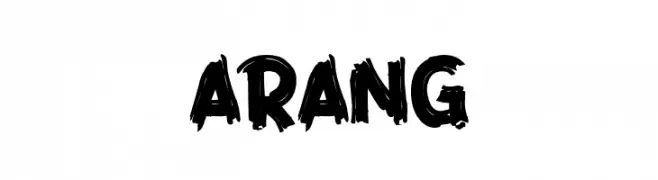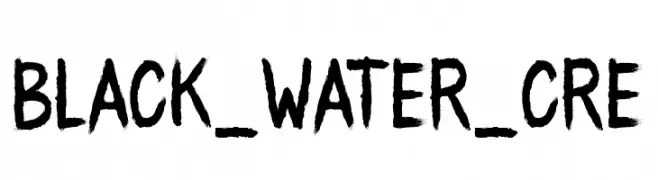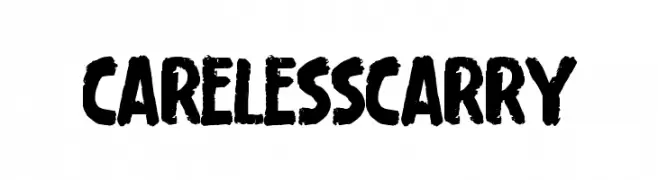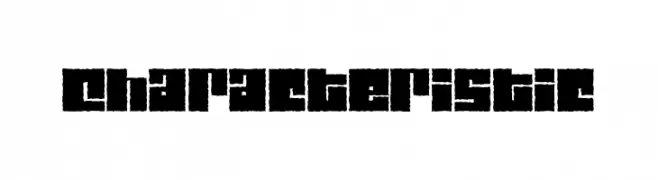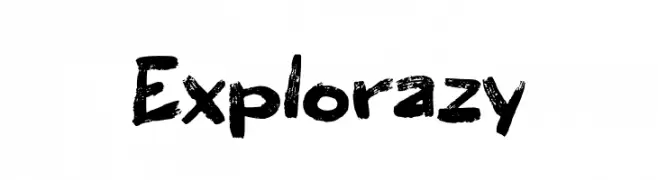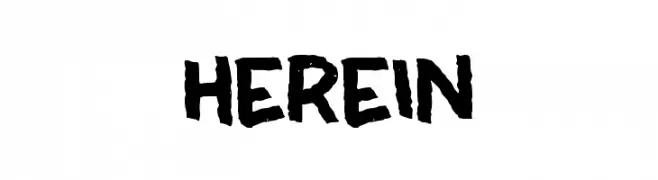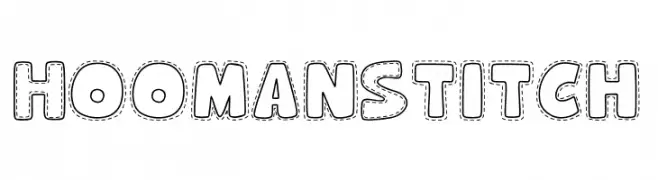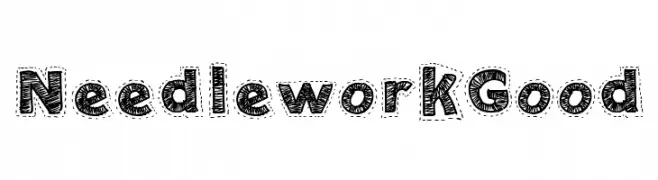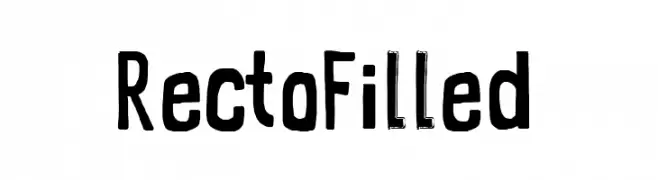
A bold, hand-drawn font with a rough, textured look.
A bold, brush-textured font with a rugged and dynamic appearance.
A bold, hand-drawn font with a vintage, organic feel.
A bold, distressed font with a rugged, industrial look.
A playful, stitched outline font with bold, rounded characters.
A bold, brush-stroke font with a raw, artistic feel.
A hand-drawn, textured font with a rustic, vintage appeal.
A playful, hand-drawn font with a stitched, embroidered appearance.
A bold, hand-drawn font with a rugged and textured appearance.
A bold, distressed font with a hand-painted, grunge aesthetic.